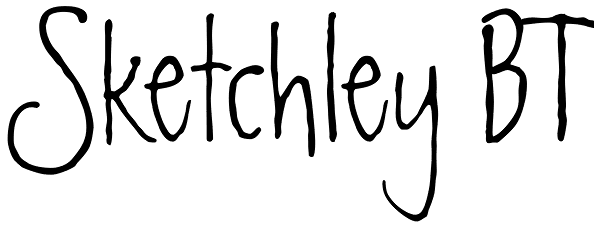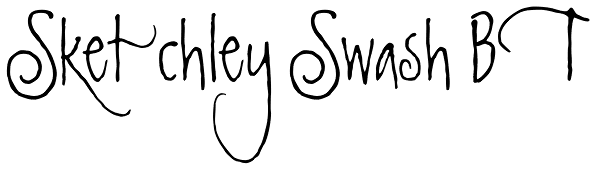
Sketchley
Ronna Penner's Sketchley is a 2001 winner of ATypI's bukva:raz! design competition, held recently in Moscow. Inspired by handwriting samples and unable to find a typeface to satisfy her needs, Ms. Penner decided to create her own. The result is this...
Sketchley BT
Sketchley Swash BT